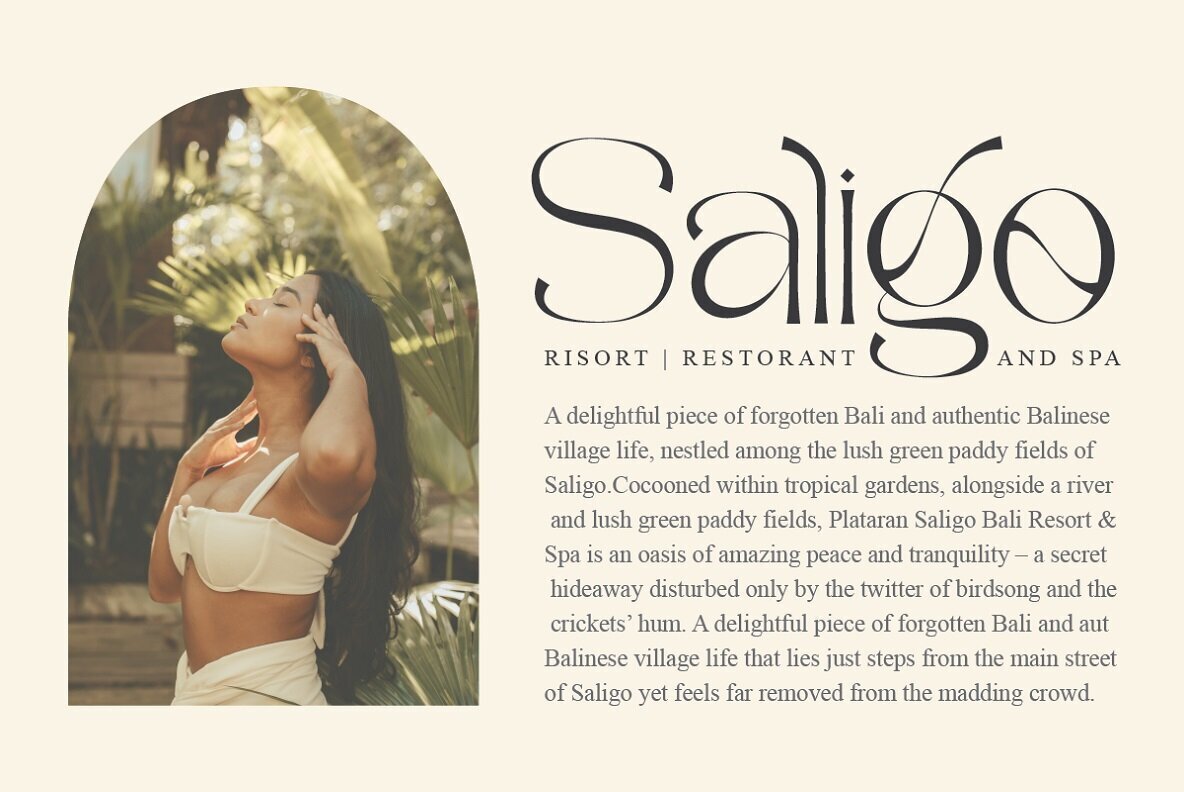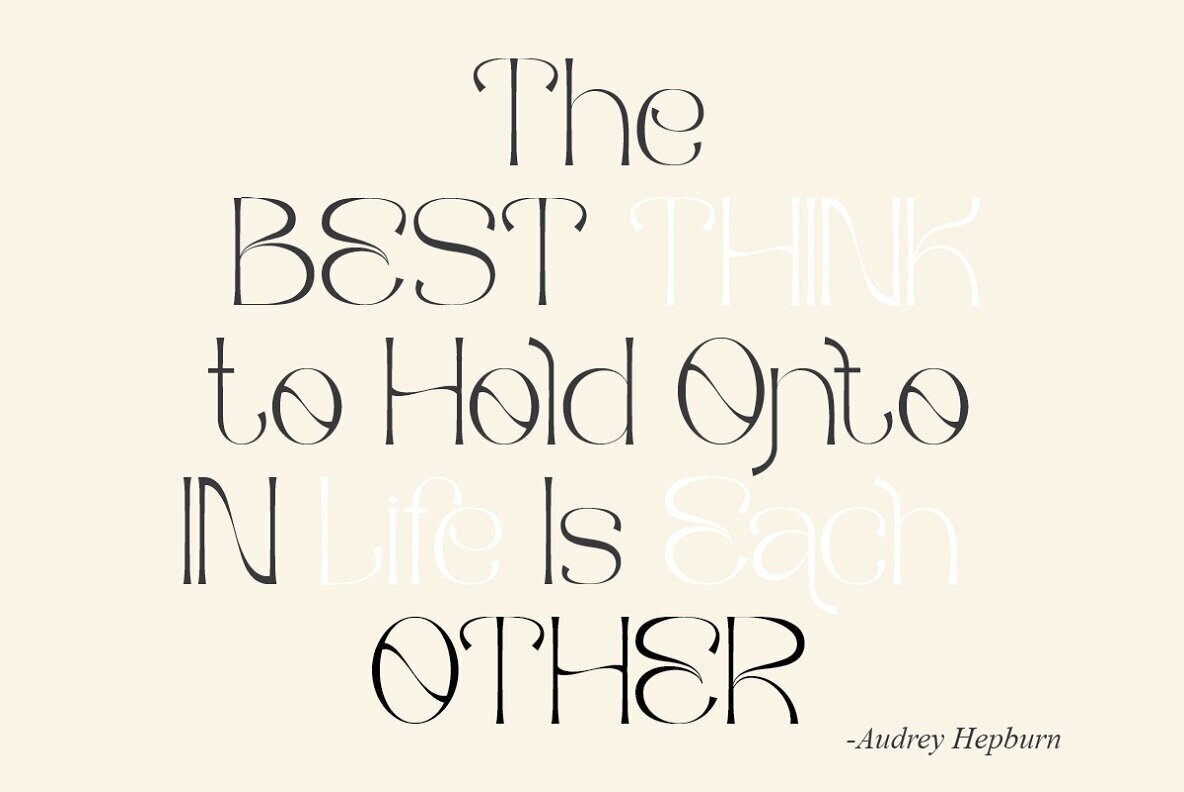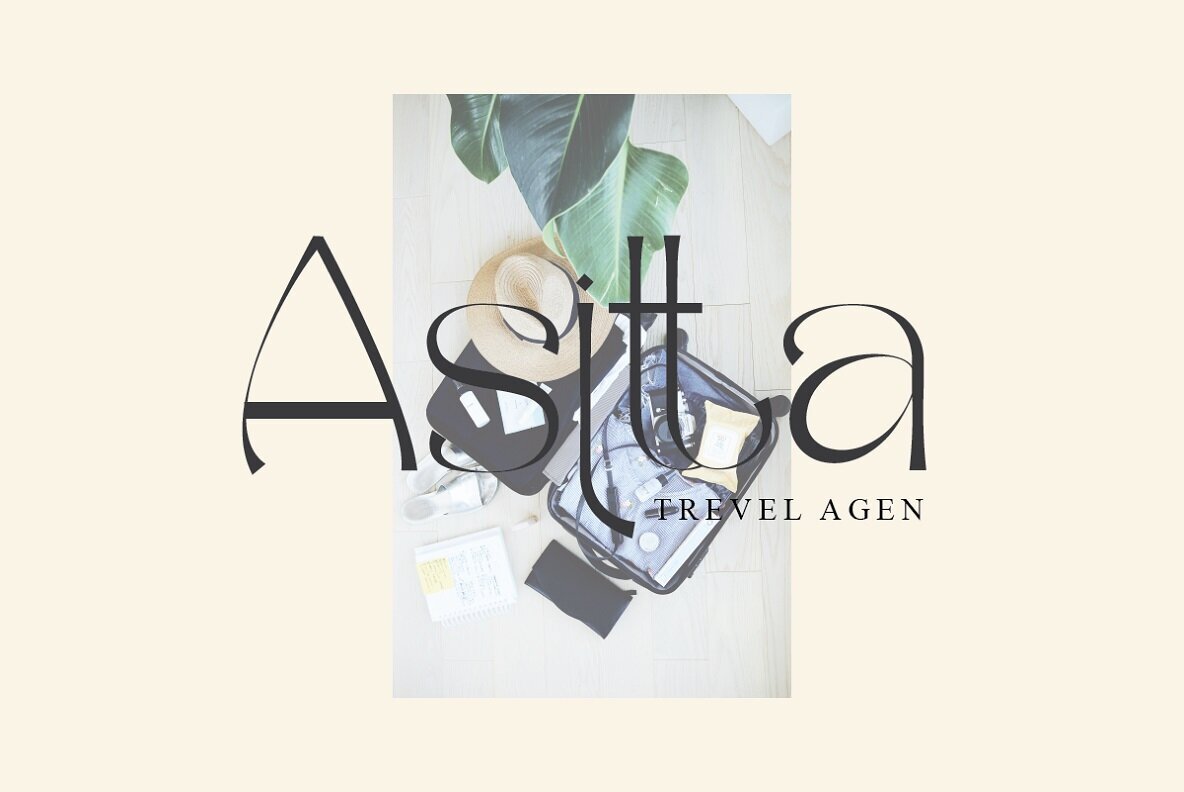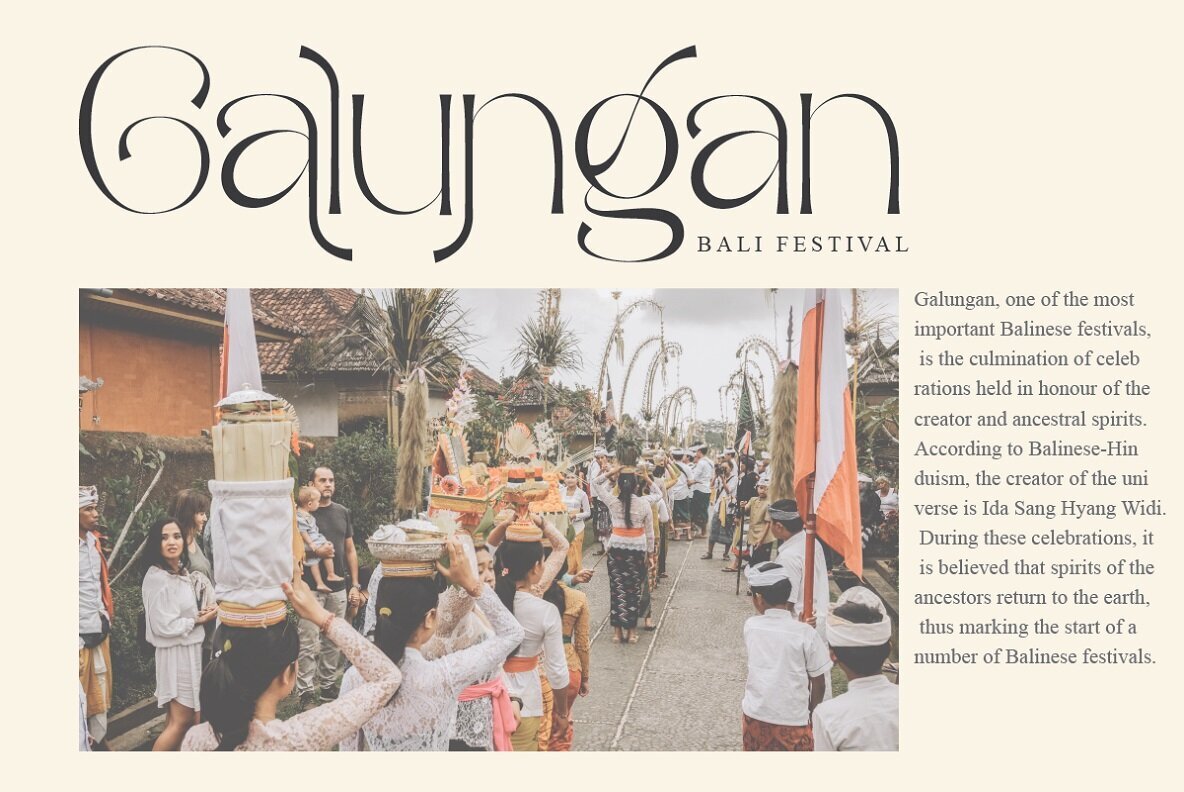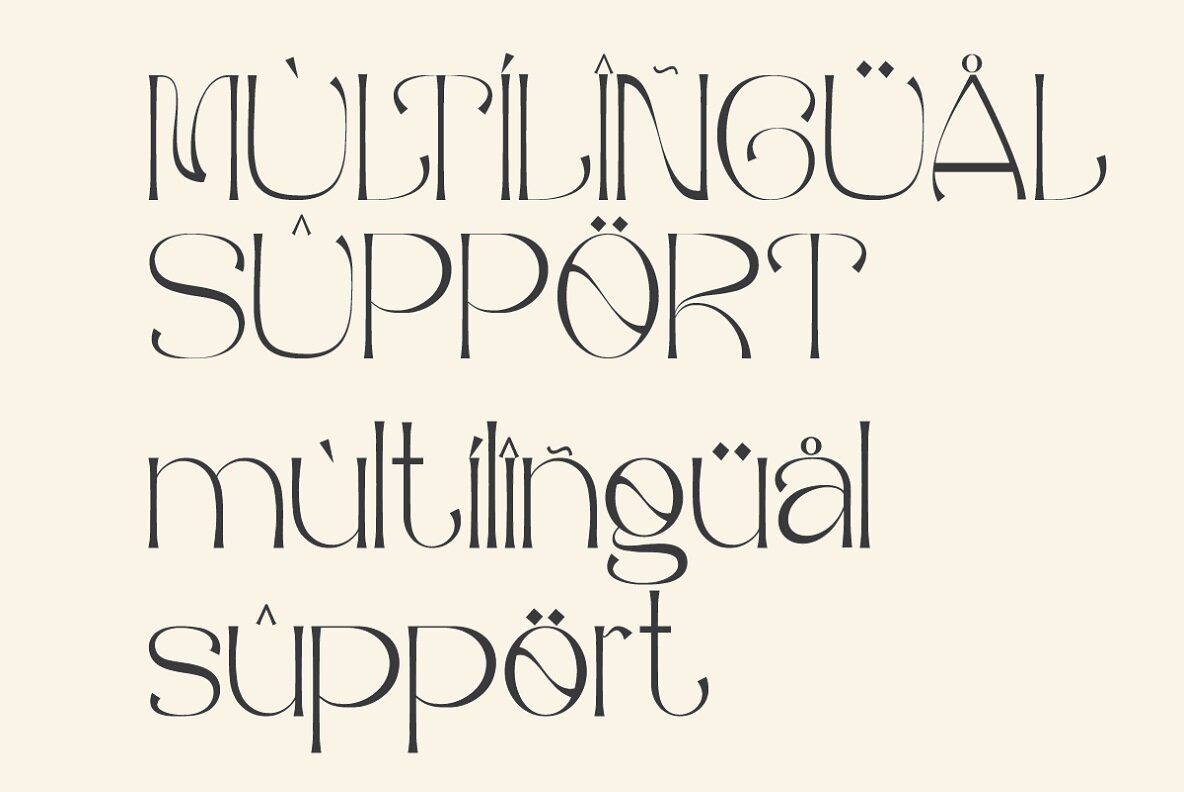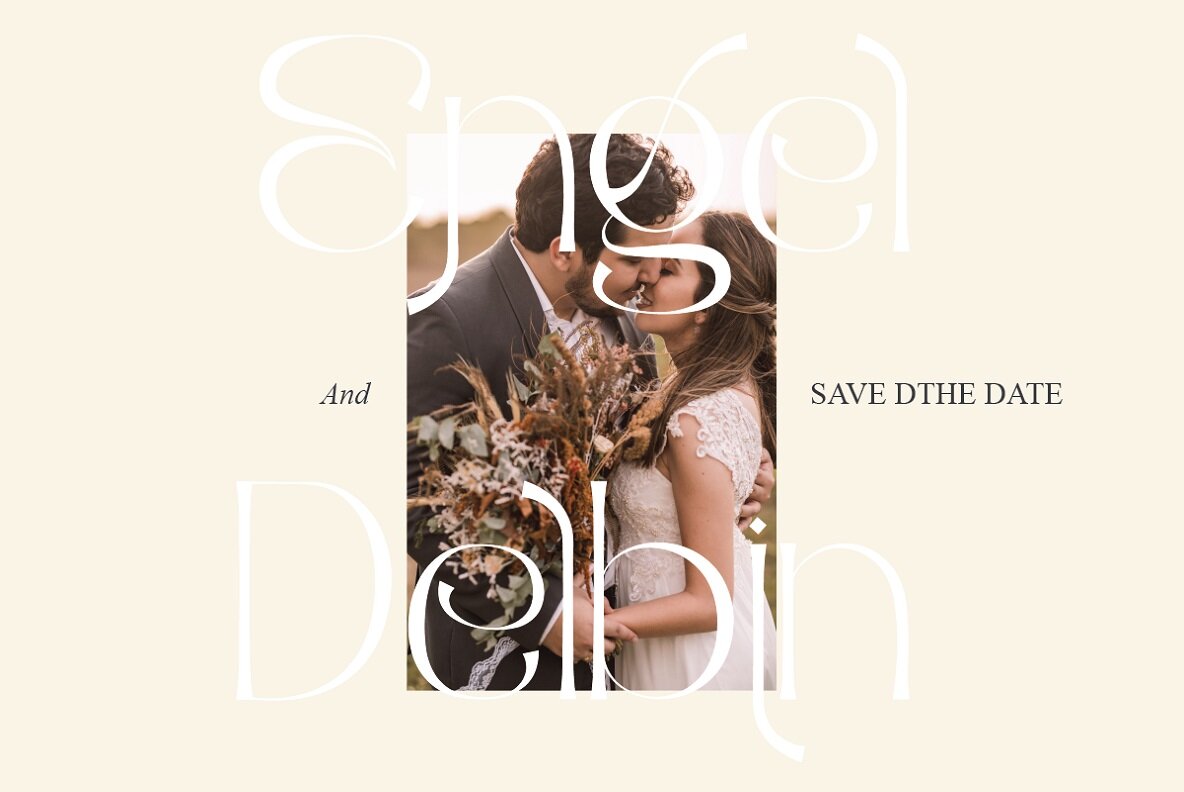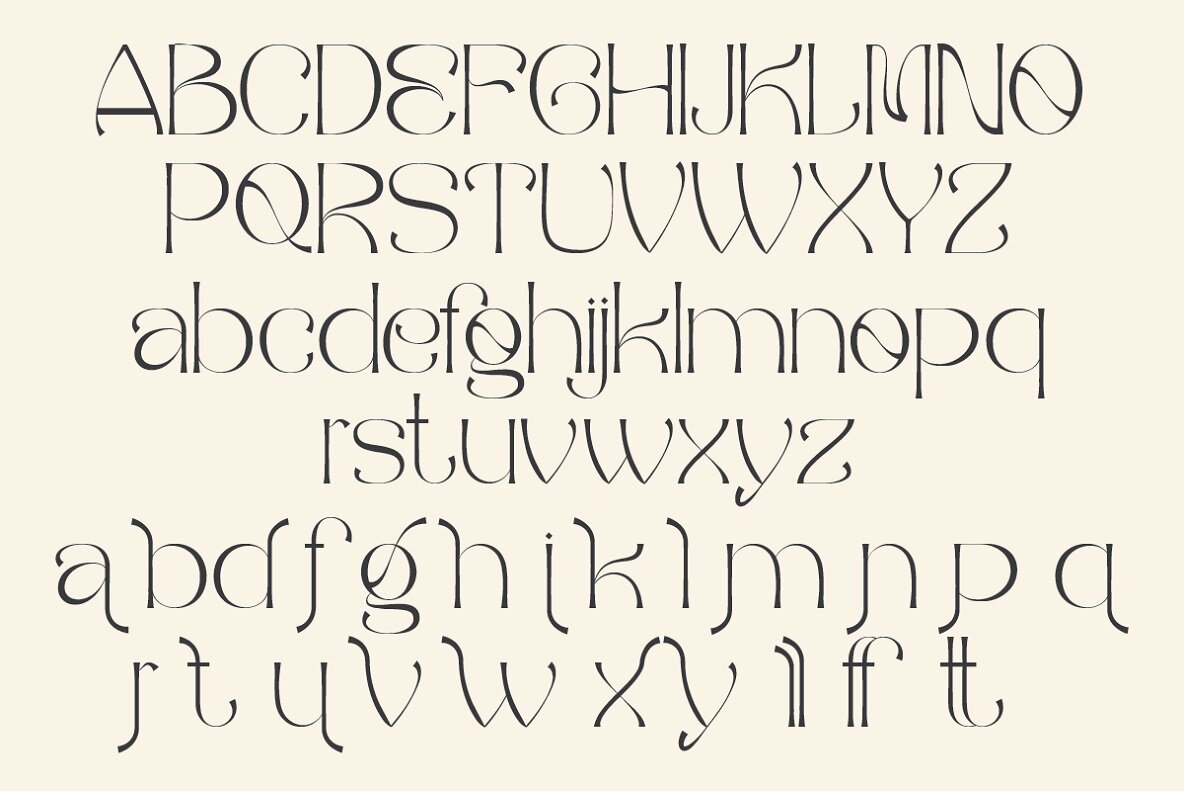
Balliniy Font
Balliniy
Balliniy emerges as a sophisticated choice for designers seeking a semi-modern serif with diverse applications. This typeface is ideal for those who appreciate fine details and versatility. Whether it's used in editorial projects, logo design, clothing branding, or as a text overlay, Balliniy delivers a stylish touch that complements both large and small sizes.Balliniy: A Semi-Modern Serif With Artistic Flair